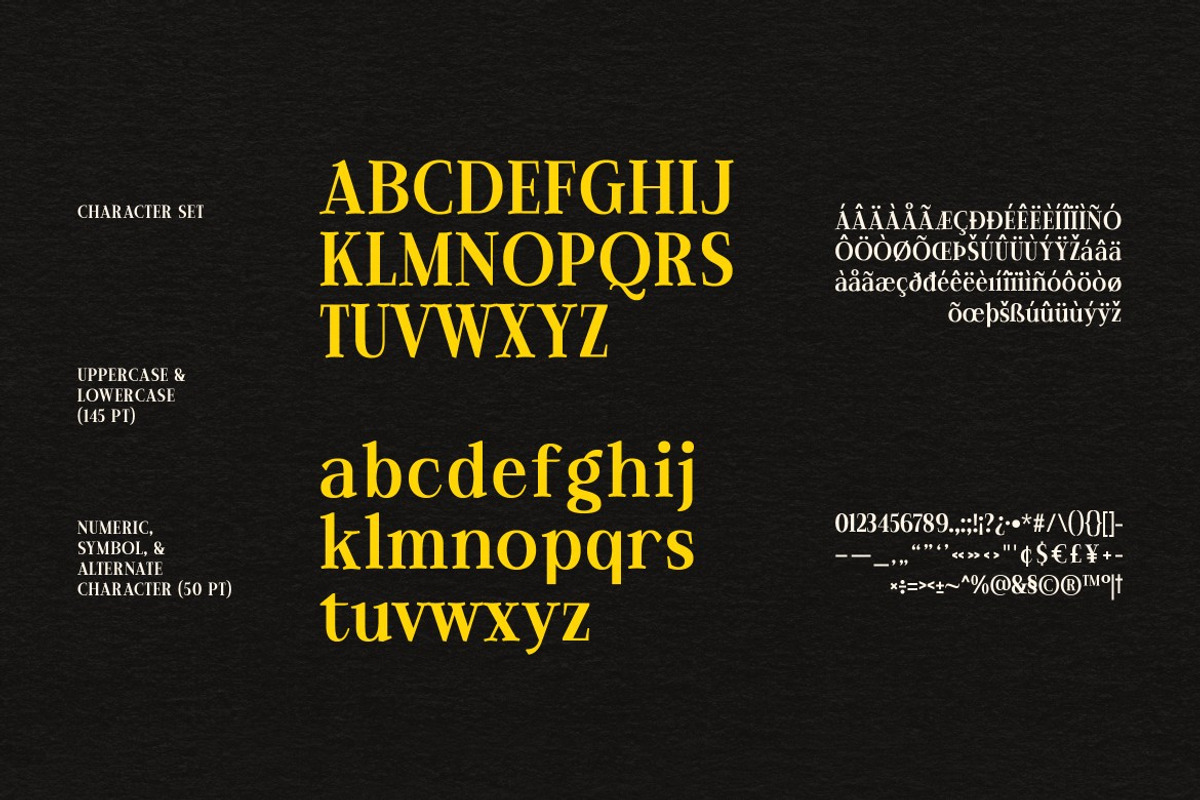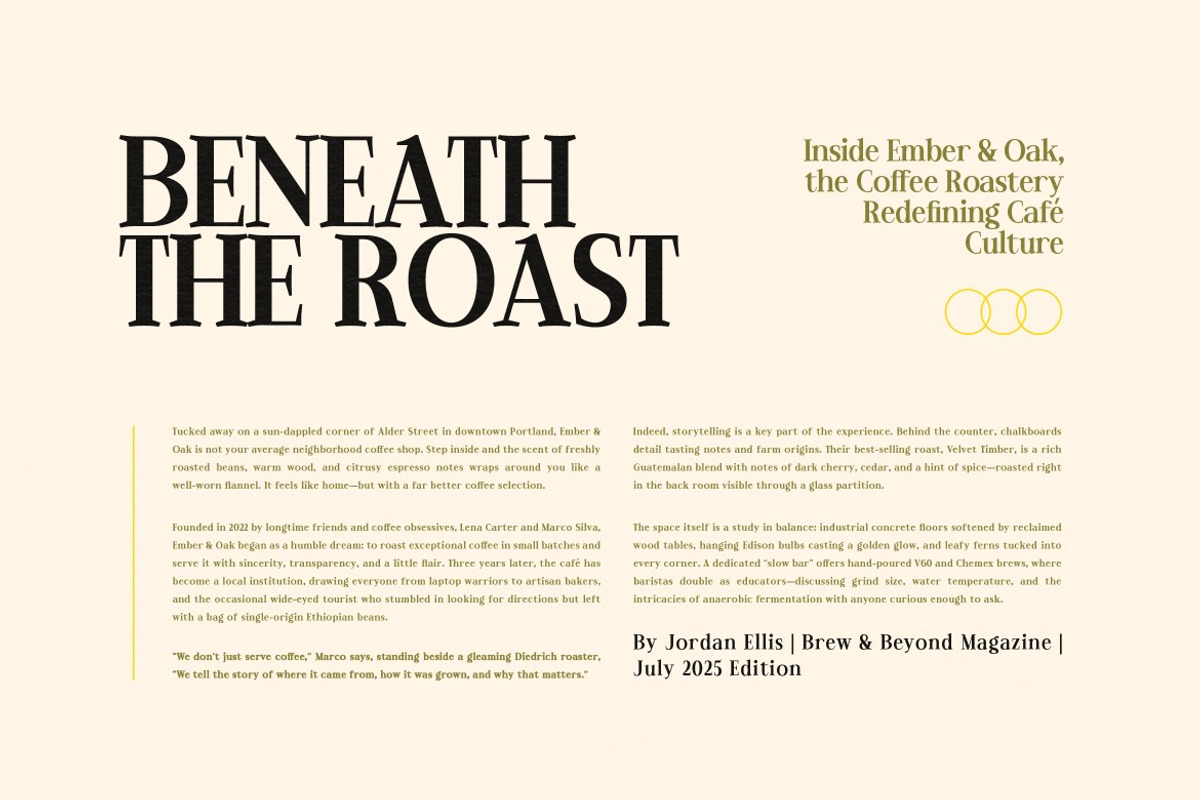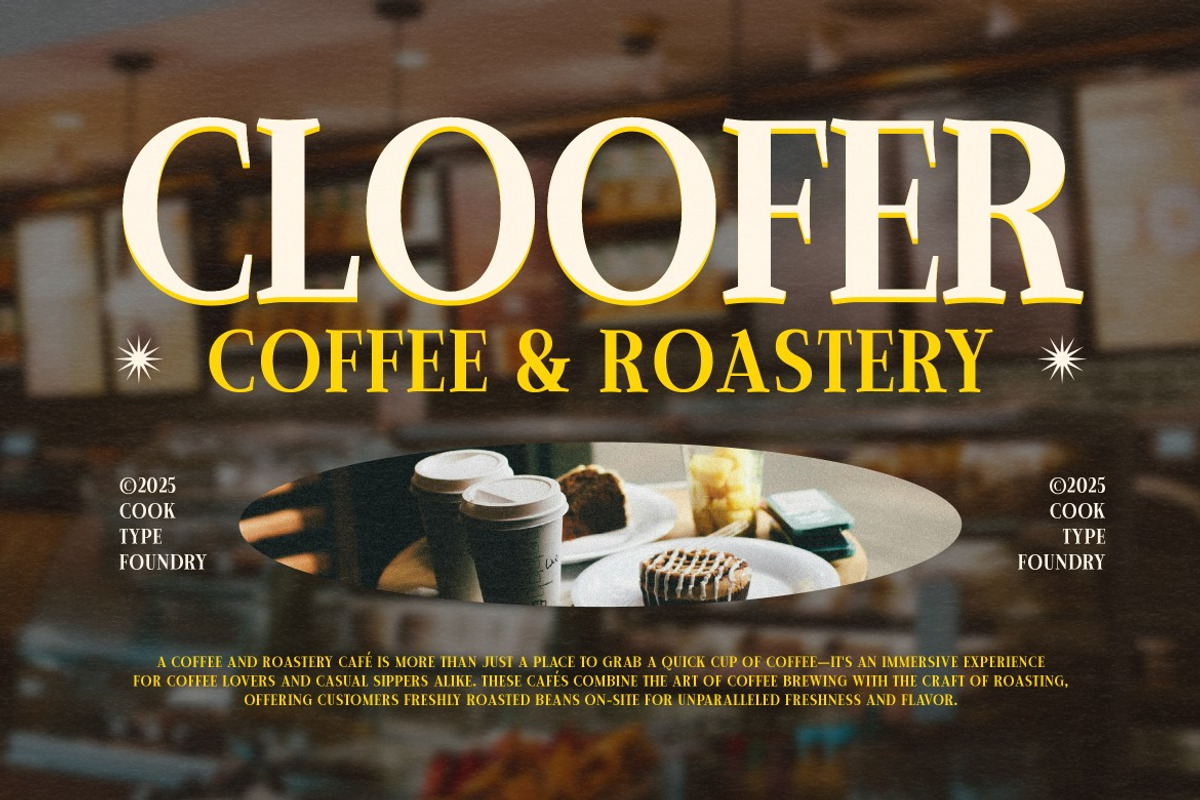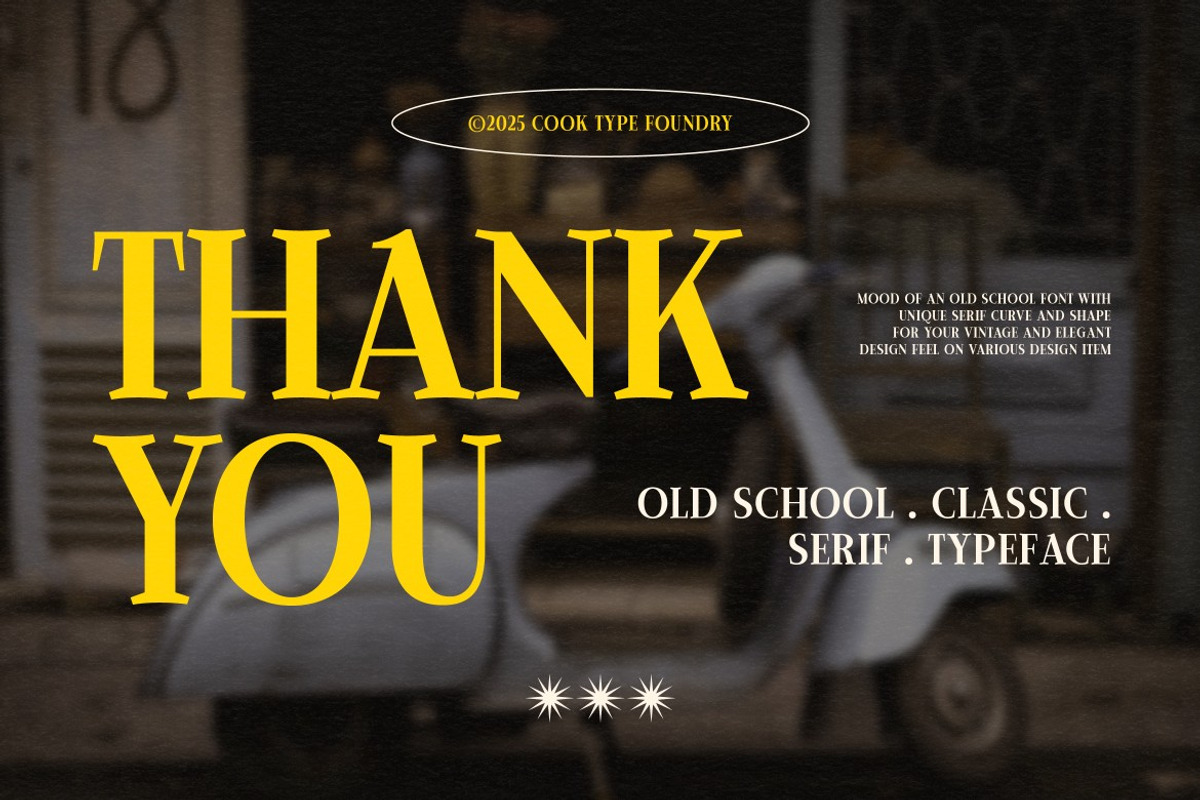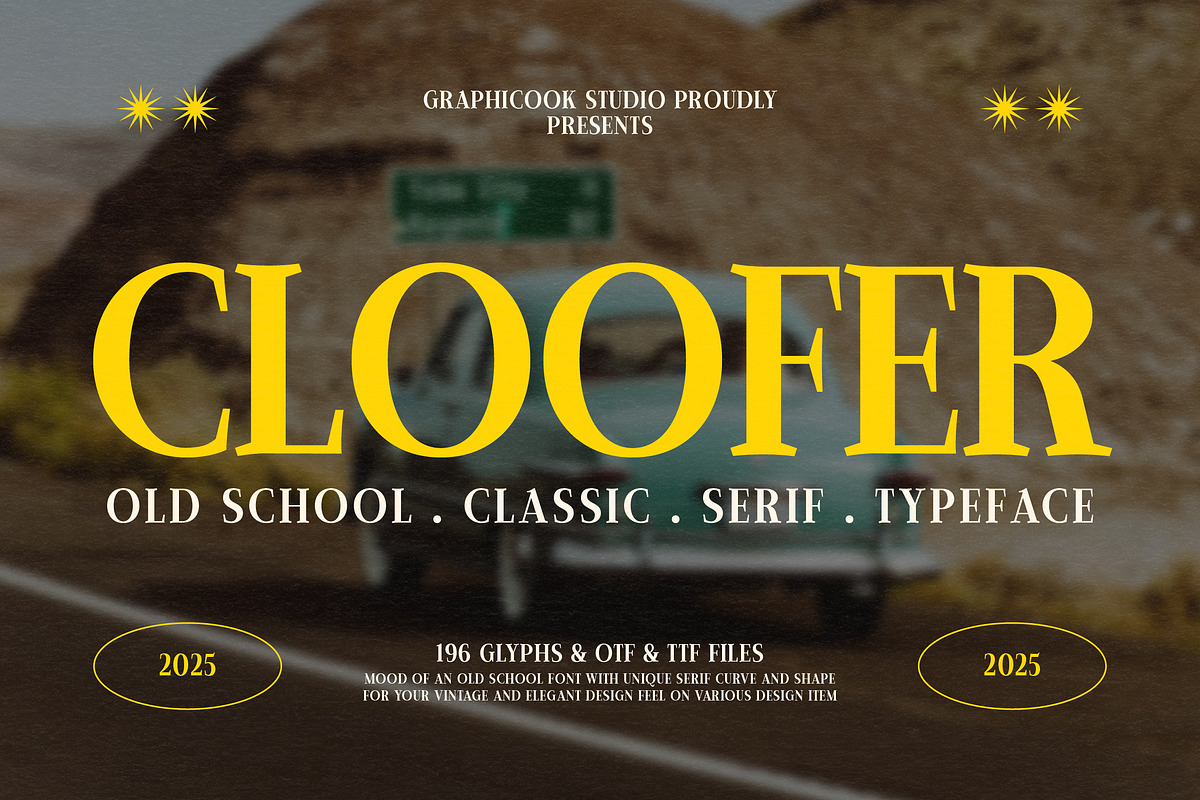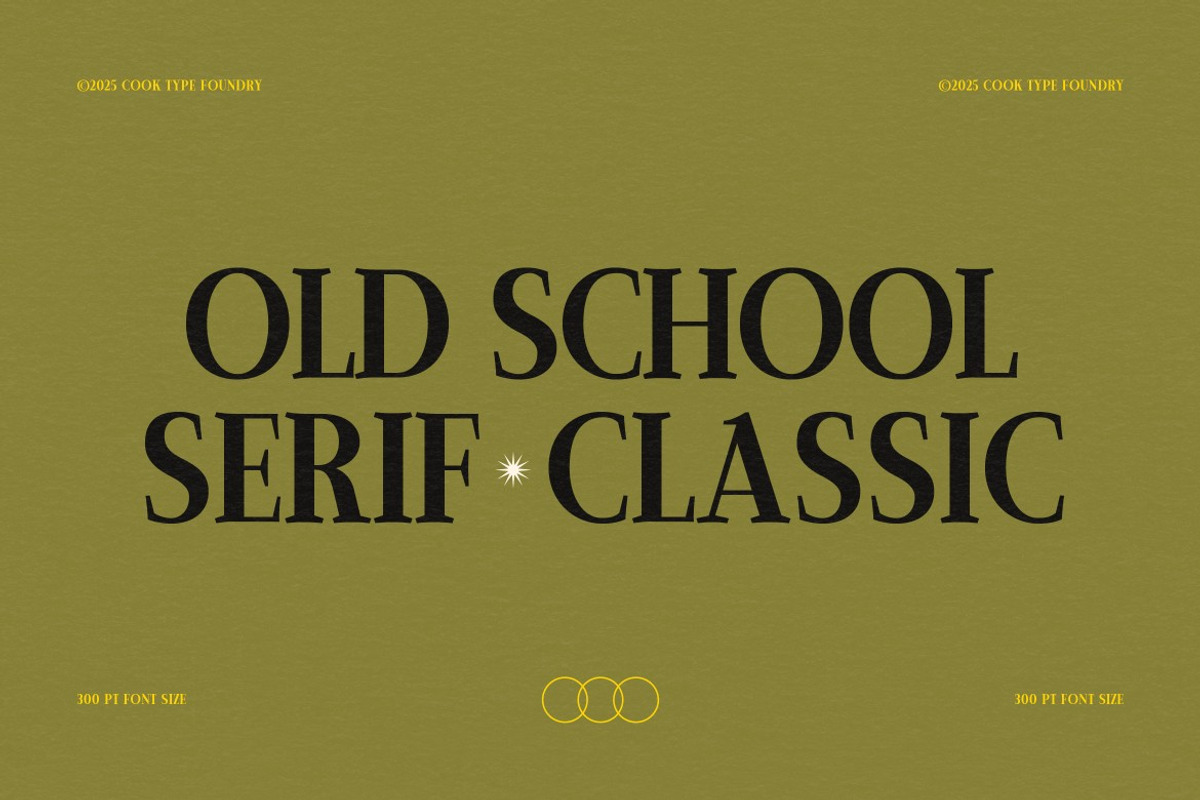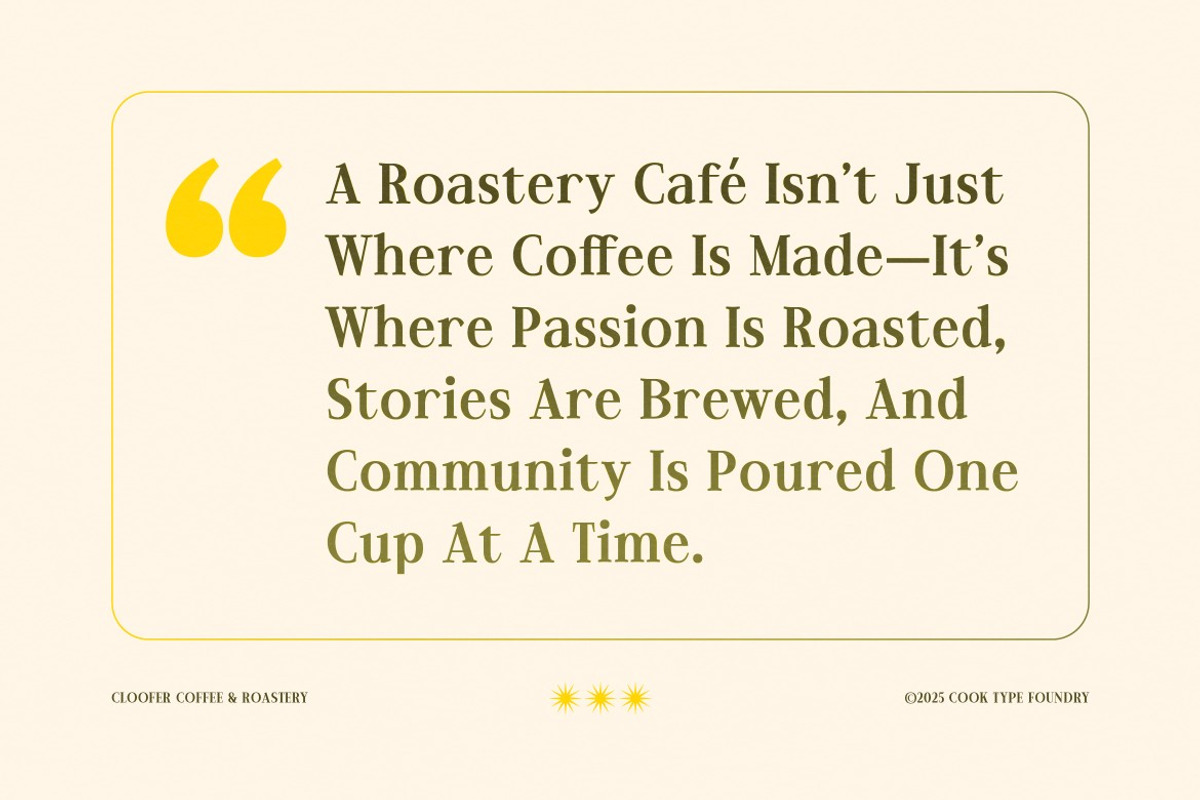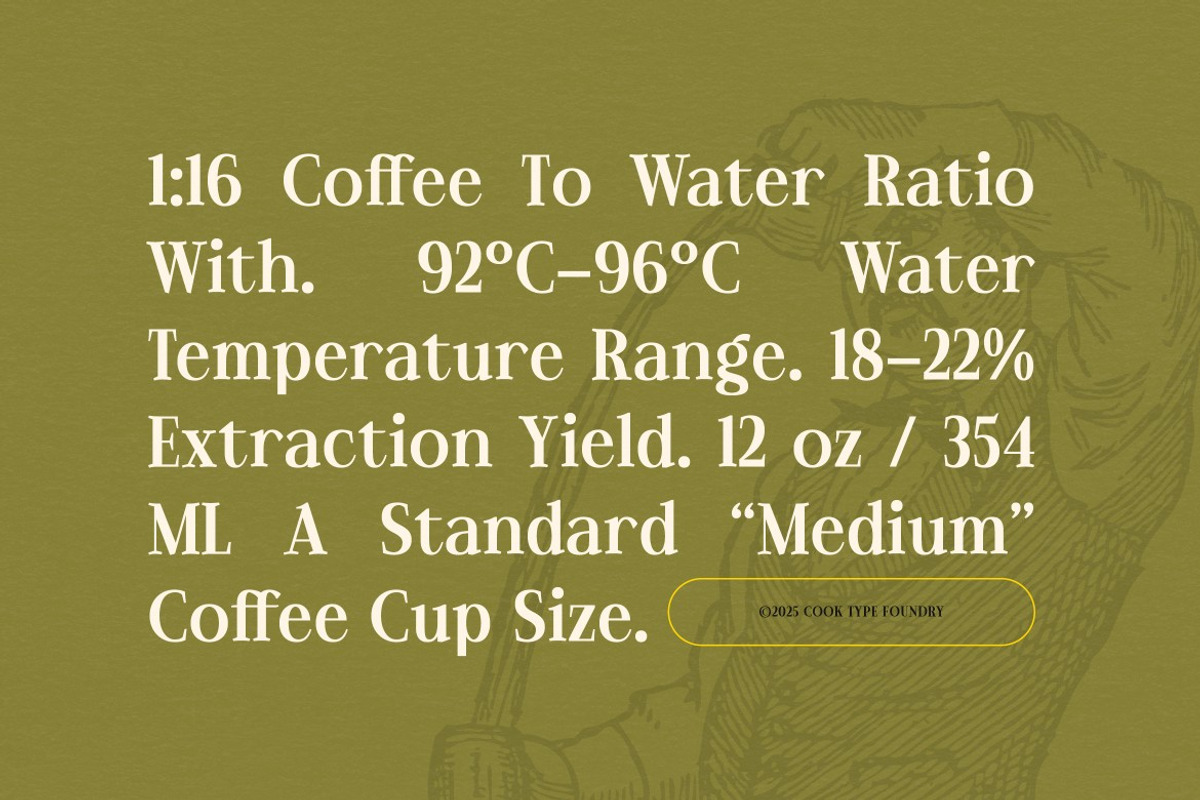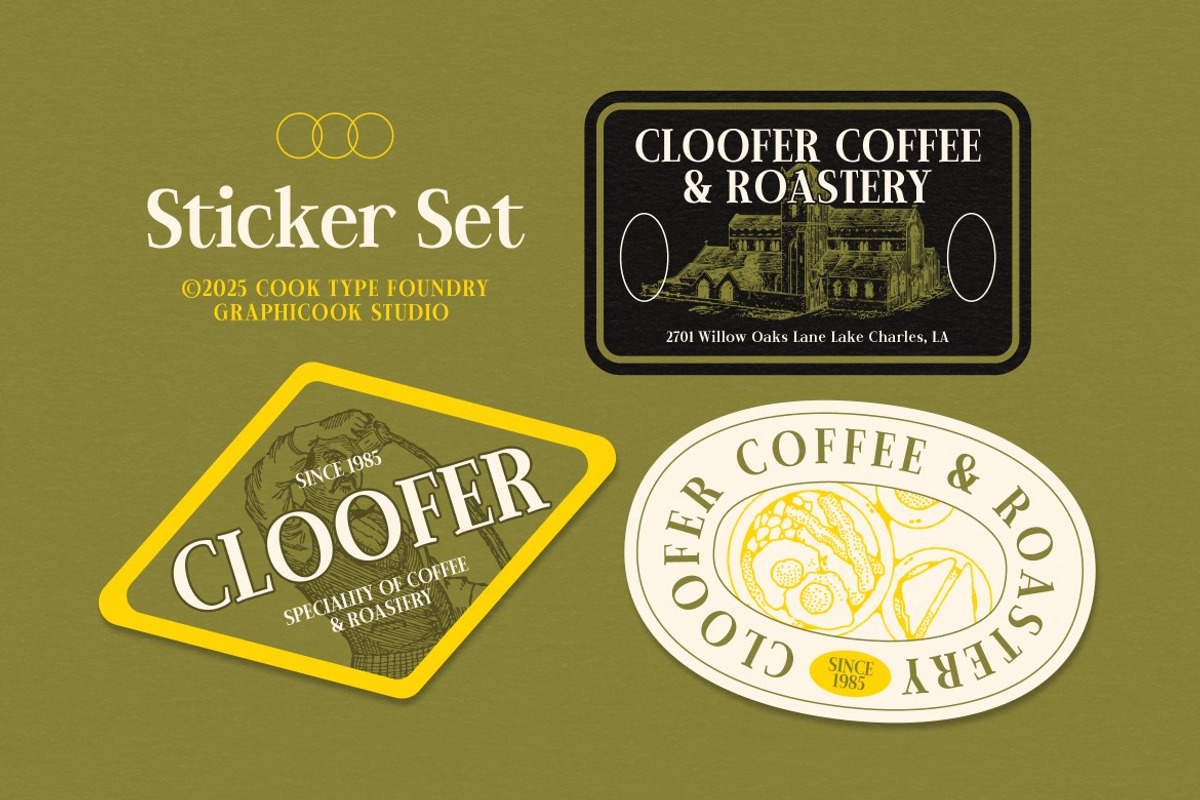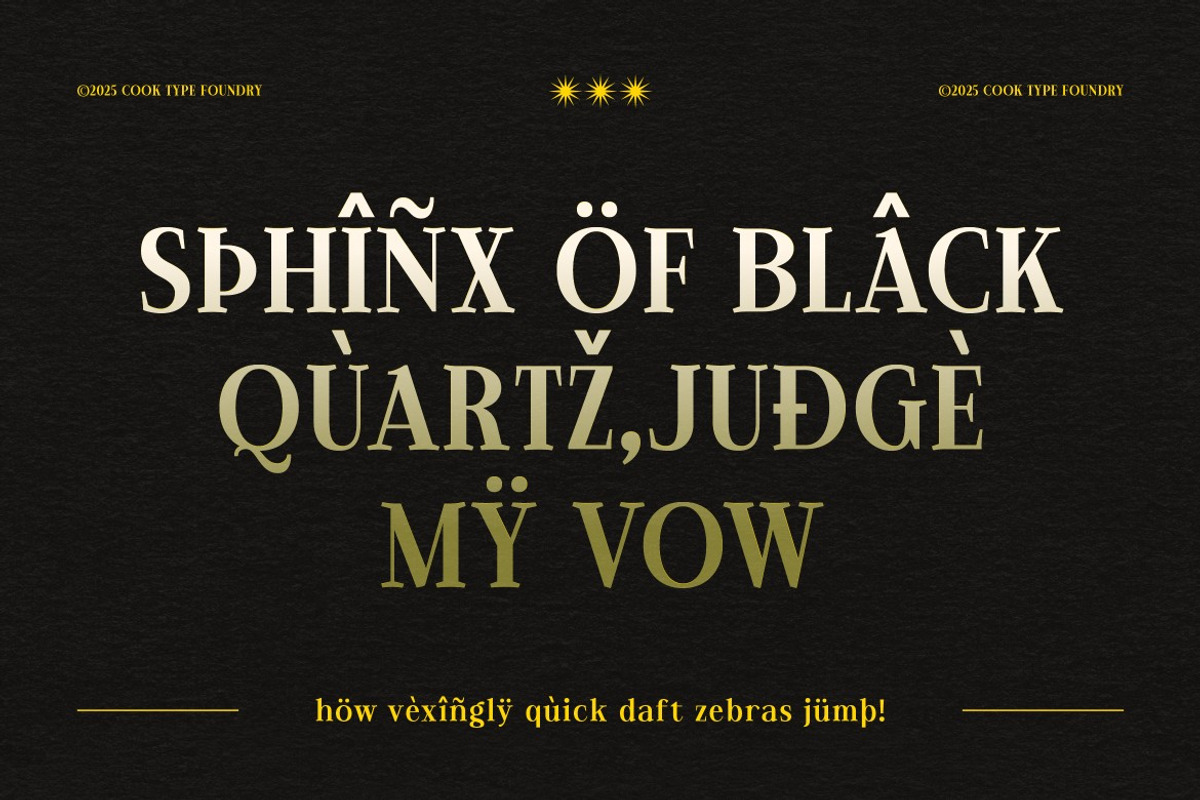
Cloofer
Cloofer is a classic serif font with bold letterforms and distinctive curves, bringing a vintage aesthetic with a timeless, retro appeal. Perfect for editorial, branding, or nostalgic-themed visuals.
It is perfect for headlines, logotypes, magazines, packaging, quotes, movies, games, cover albums, book covers, and flyers, it's a perfect solution for creating eye-catching designs that stand out in any context.